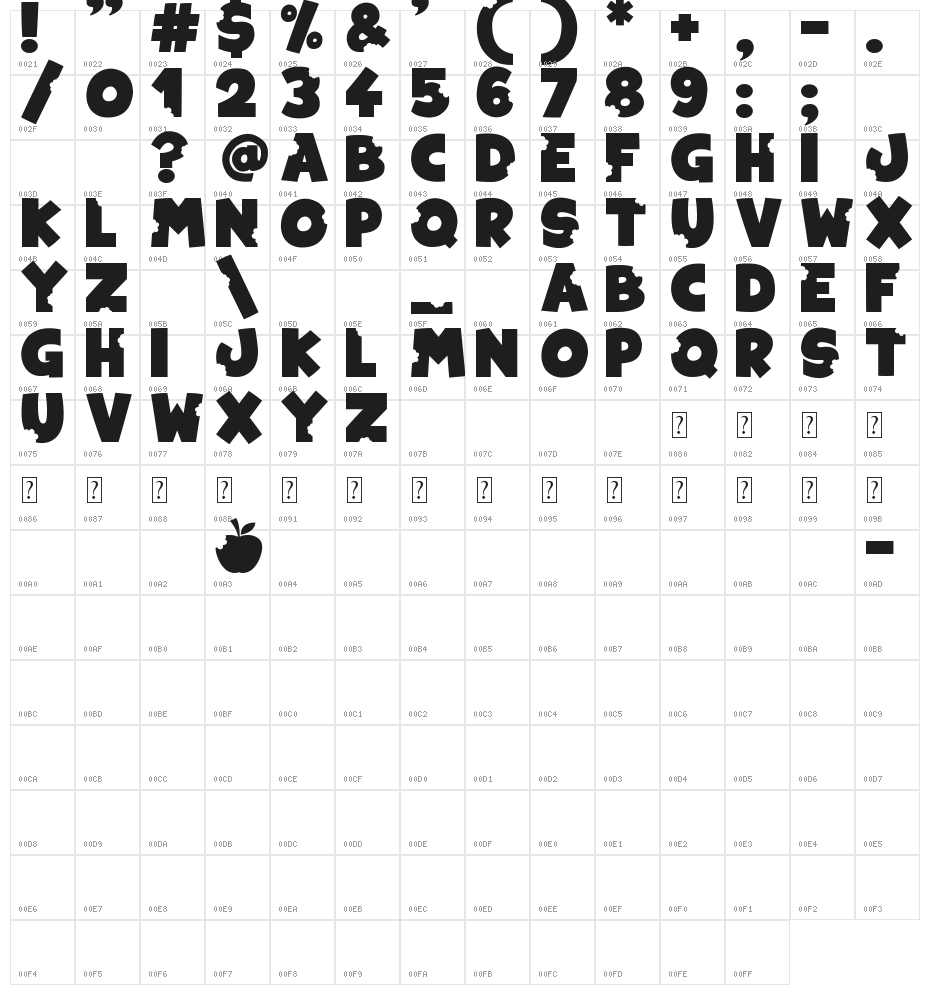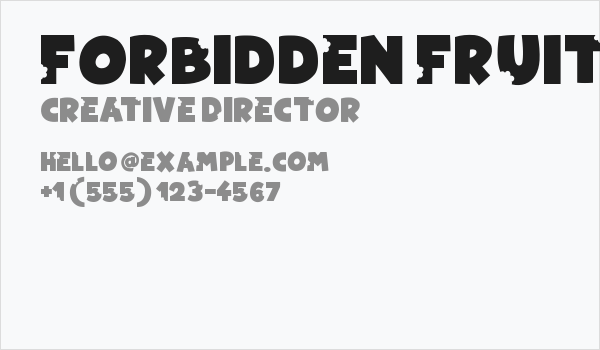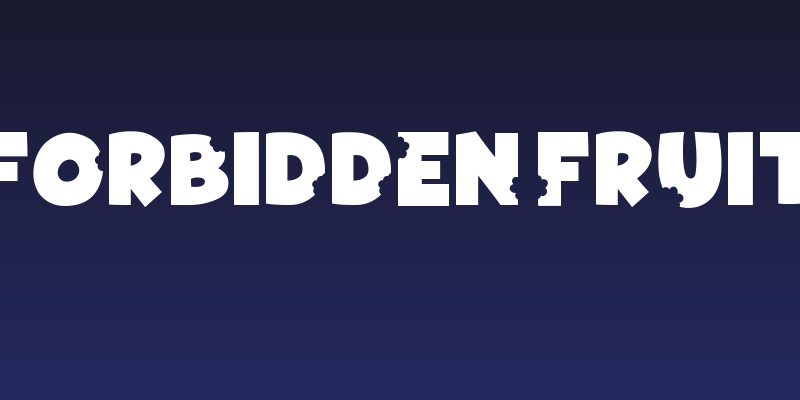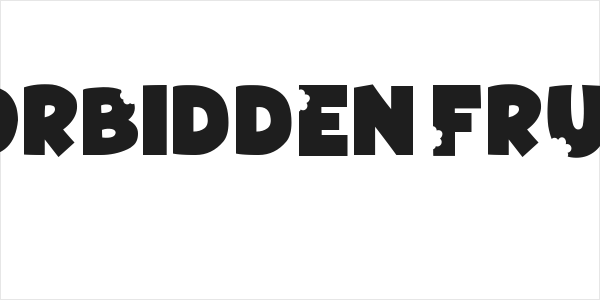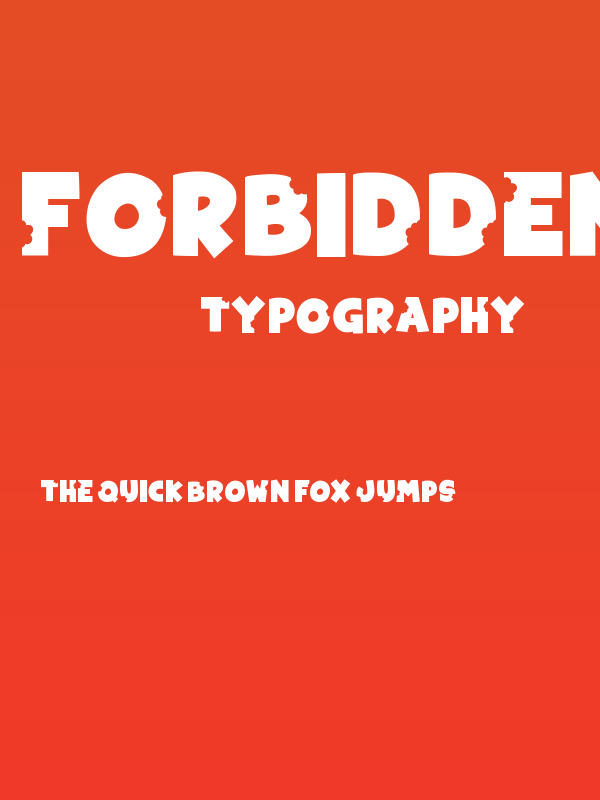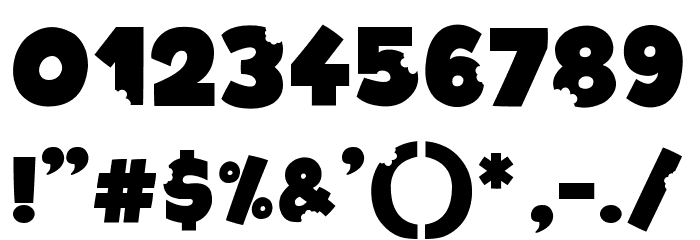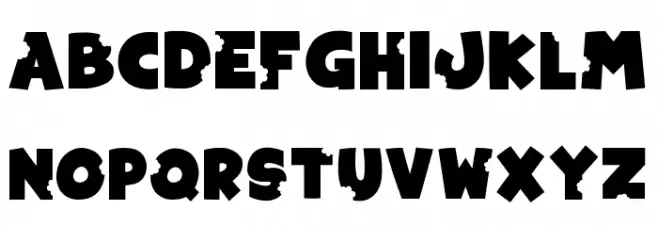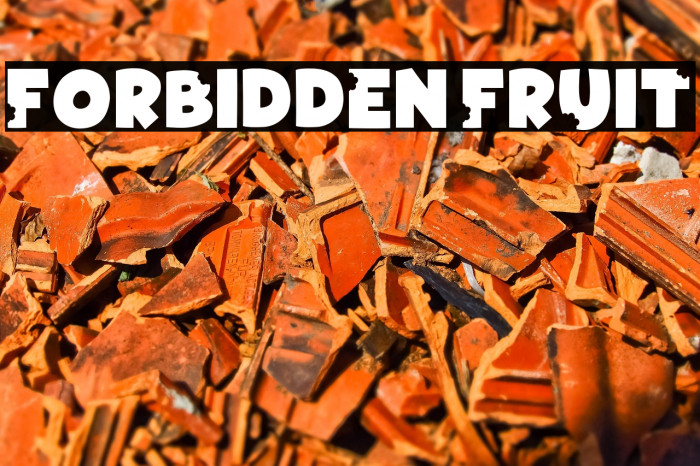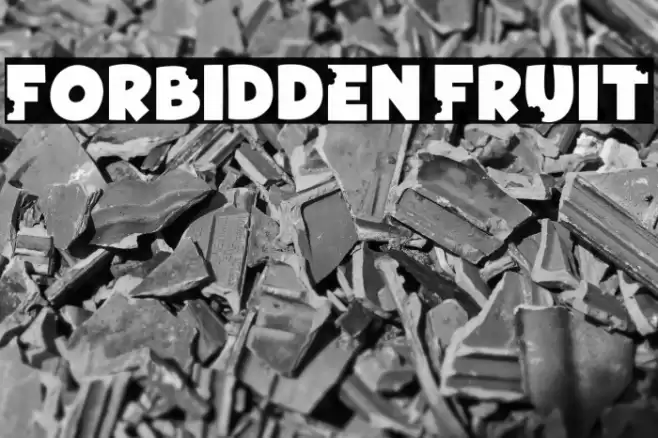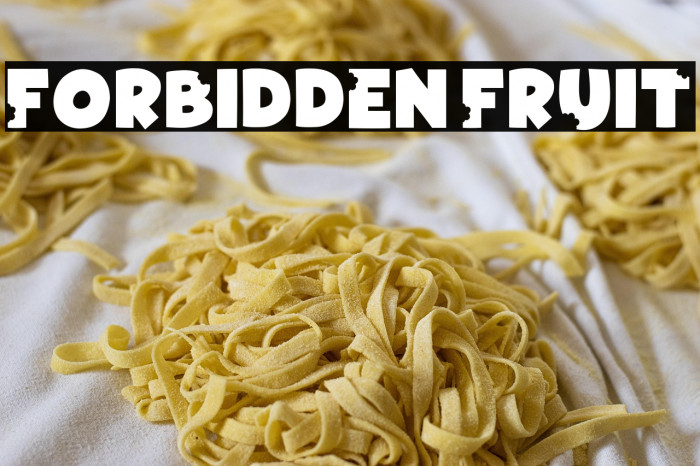
Forbidden Fruit Font
| Категория | Cartoon |
| Общий стиль | Playful, Whimsical |
| Рекомендуемые проекты | Ideal for children's books, playful branding, creative advertising, and eye-catching posters. |